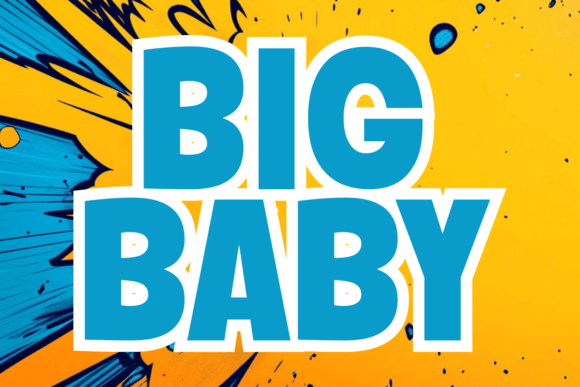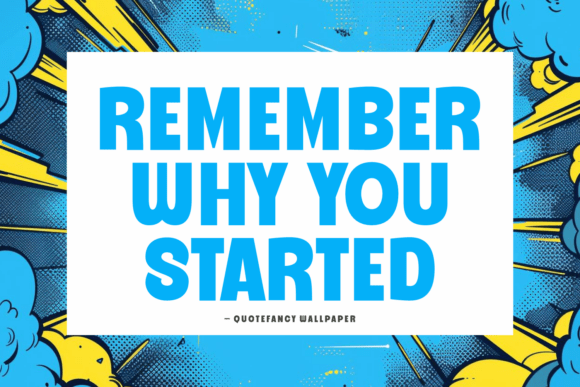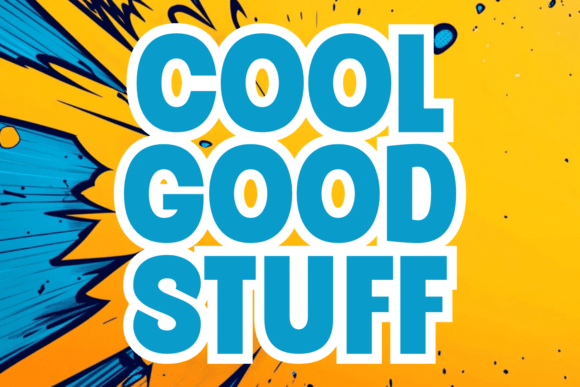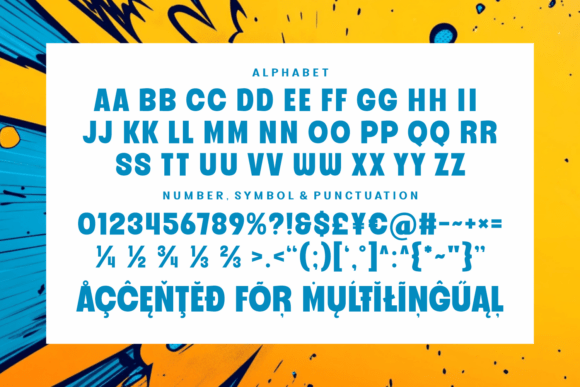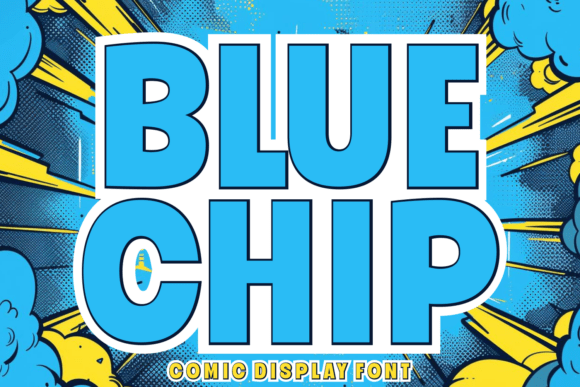
Introducing the Blue Chip Font: A Dash of Daring Innovation with a Hefty Sprinkle of Charm and Cheerfulness
Are you tired of using the same old fonts for your designs? Look no further! The Blue Chip font is here to shake things up with its daring innovation, charm, and cheerfulness. This block-lettered beauty is designed to enchant and entertain with its bouncy feel and fun vibe. Every letter you type is an all-caps shoe-tapped dance to a summer beach party.
A Festive Font for All Occasions
The Blue Chip font is a peppy companion suitable for all occasions. Whether you’re planning a holiday poster, crafting a cute logo or title, or creating endearing stickers, this font is the perfect choice. Its playful, kid-friendly vibe makes it ideal for teachers to create educational materials or for children’s products. Additionally, its subtly sturdy nature also makes it apt for a simple, modern farmhouse theme.
The Blue Chip font is a versatile font that can be used for a variety of design projects. Its simple, casual charm makes it perfect for Procreate, and it’s also a great choice for Cricut users. Whether you’re crafting a joyful birthday card or need that perfectly lovely baby font, consider Blue Chip your go-to font. It’s spirited, it’s alluring, it’s simply – your type!
What Makes Blue Chip Font Special?
• Playful and Fun Vibe: The Blue Chip font has a bouncy feel and fun vibe that’s perfect for creating designs that are lively and engaging.
• Kid-Friendly: This font is ideal for children’s products, educational materials, and other projects that require a playful and youthful feel.
• Versatile: The Blue Chip font can be used for a variety of design projects, from holiday posters to logos, titles, and more.
• Simple and Casual Charm: This font has a simple, casual charm that makes it perfect for Procreate and Cricut users.
• Subtly Sturdy: The Blue Chip font has a subtly sturdy nature that makes it apt for a simple, modern farmhouse theme.
How to Use Blue Chip Font
The Blue Chip font is easy to use and can be incorporated into a variety of design projects. Here are a few ideas to get you started:
• Holiday Posters: Use the Blue Chip font to create festive holiday posters that are sure to grab attention.
• Logos and Titles: This font is perfect for creating cute logos and titles that are playful and fun.
• Stickers and T-Shirts: The Blue Chip font is ideal for creating endearing stickers and casual t-shirts that are perfect for kids and adults alike.
• Educational Materials: Teachers can use this font to create educational materials that are fun and engaging for students.
• Display Typography: The Blue Chip font is perfect for creating charismatic display typography that’s sure to make your designs stand out.
The Blue Chip font is a unique and versatile font that’s perfect for designers and crafters. Its playful, kid-friendly vibe and simple, casual charm make it ideal for a variety of design projects. Whether you’re crafting a joyful birthday card or need that perfectly lovely baby font, consider Blue Chip your go-to font. Be coy, be cool, and stay chipper with the Blue Chip font!